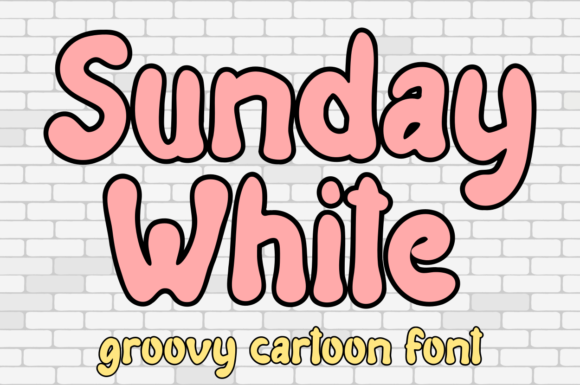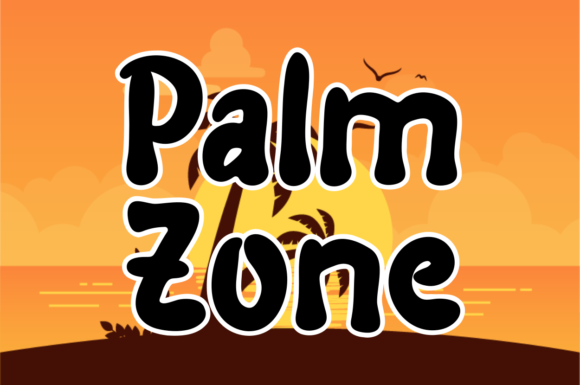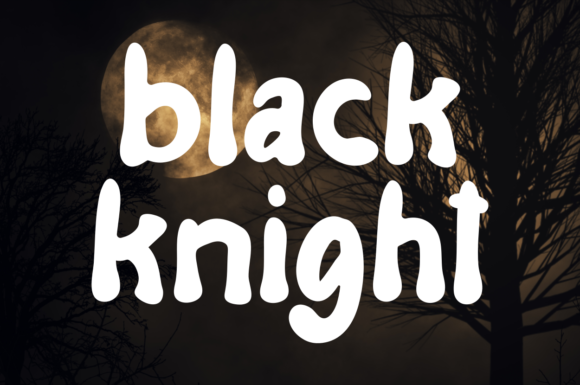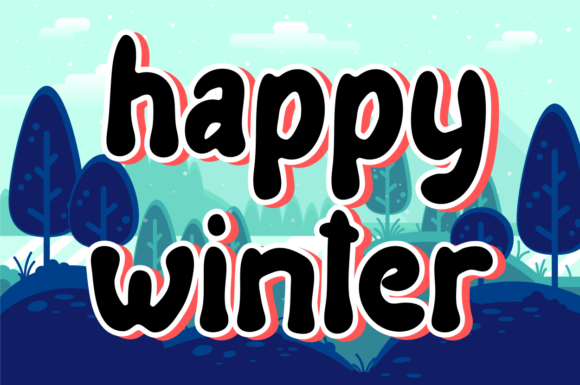
Sunday White Font
About Sunday White Font
Sunday White is a charming and bold script font that exudes a warm and friendly vibe. With its playful and inviting style, this font is a perfect choice for a wide range of design projects, from greeting cards to kids’ crafts and everything in between.
The bold and eye-catching letterforms of Sunday White make it stand out and draw attention to your designs. Its friendly and approachable appearance adds a touch of sweetness and joy to any project, making it ideal for conveying messages of warmth, happiness, and positivity.
Whether you’re creating birthday cards, party invitations, posters, or any other designs aimed at kids or the young-at-heart, Sunday White will instantly infuse your creations with a sense of delight and playfulness. Its versatility allows it to shine in various applications, from digital designs to printed materials.
The bold strokes and smooth lines of Sunday White create a strong visual impact, making it easy to read and understand, even in smaller sizes. This readability ensures that your messages are conveyed clearly and effectively, enhancing the overall user experience.
With its friendly demeanor, Sunday White can add a touch of personalization and warmth to your branding and marketing materials. Whether used as a logo, tagline, or headline, this font can help your brand connect with your target audience in a meaningful way.
Sunday White’s versatility and adaptability make it an excellent choice for a wide range of creative projects. Its ability to evoke feelings of joy and positivity makes it well-suited for designs aimed at children, families, and anyone looking for a dose of cheerfulness in their day.
In summary, Sunday White is a bold and friendly script font that brings a delightful and sweet touch to any design. Its versatility allows it to shine in various applications, making it suitable for both digital and printed materials. Embrace the playful charm of Sunday White and let it add a warm and inviting atmosphere to your next creative project.